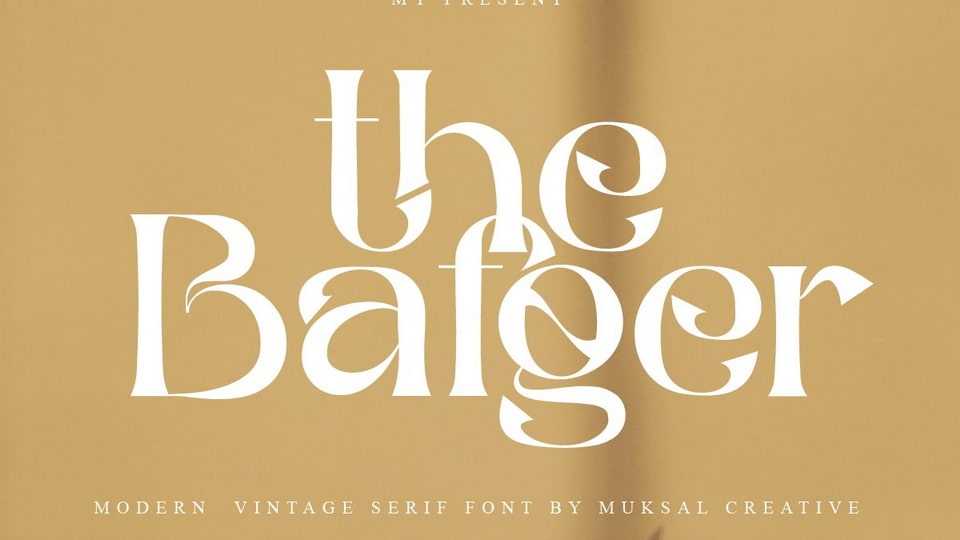
Download The Bafger font, a modern vintage serif typeface that features unique look and feel. The Bafger is a fancy typeface, perfect to elevate a wide variety of projects, from logos and stationery to magazine covers and social media posts.
Designer: Muksal Creative